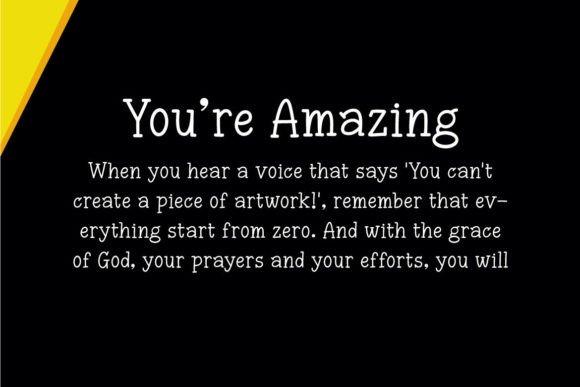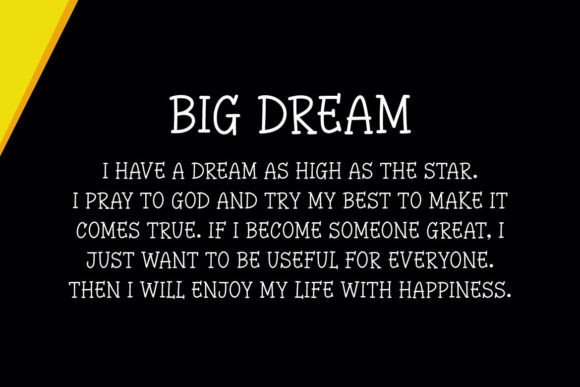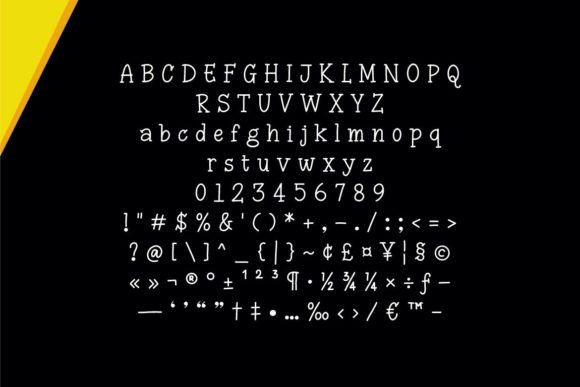
Introduction to Marking First Font
Marking First is a simple handwritten font.
Marking First can be used in any project idea such as a flyer, book title, advertisement, social media content, logo, and many more .
Key Features of Marking First Font